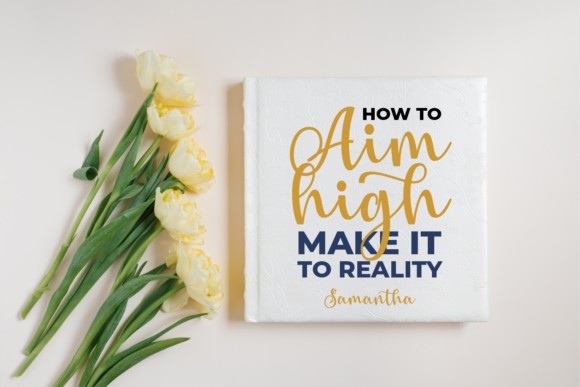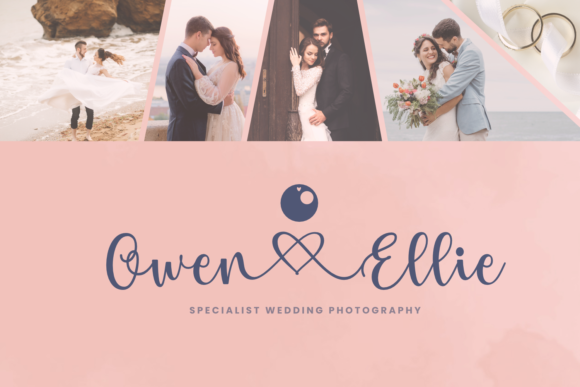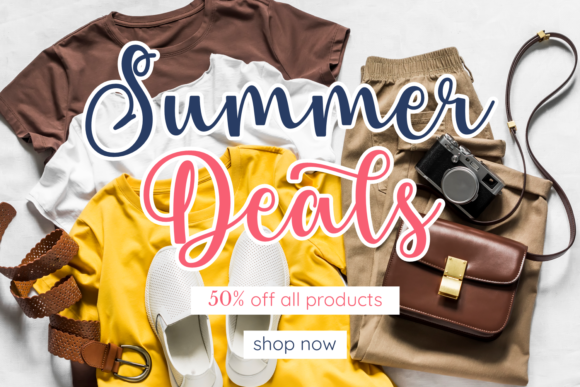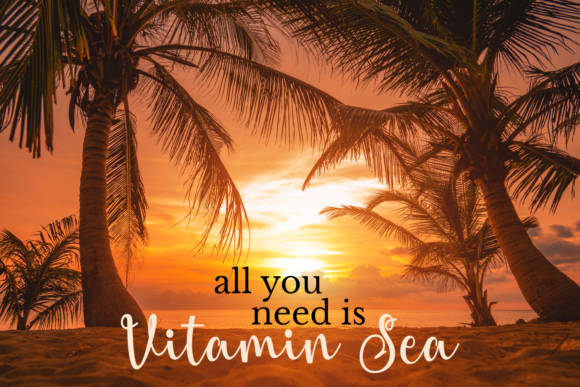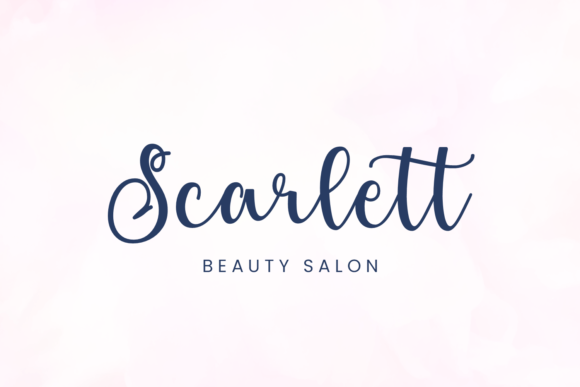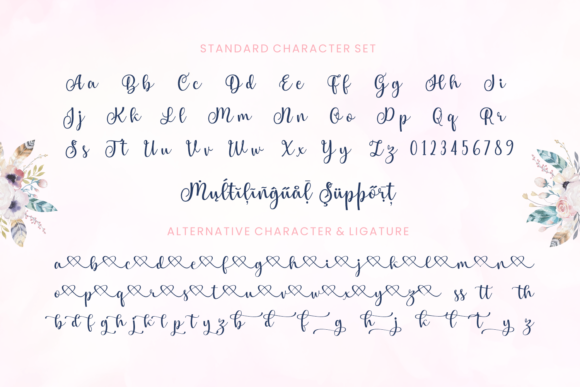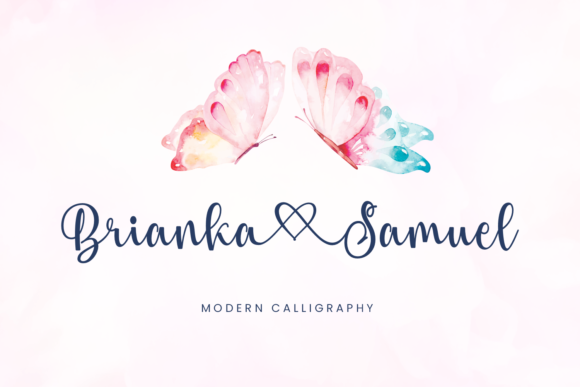
Brianka Samuel Font: Elevate Your Designs with a Touch of Elegance
In the world of typography, fonts play a crucial role in conveying the tone and personality of a design. For those seeking a beautiful, handwritten font that exudes a sense of romance and modernity, look no further than Brianka Samuel. This stunning typeface features cursive characters that are sure to add an authentic touch to various design projects, from wedding invitations to birthday cards and thank you notes.
What Makes Brianka Samuel Font Stand Out?
Brianka Samuel is a versatile handwritten font that boasts a unique blend of elegance and playfulness. Its cursive characters are carefully crafted to create a sense of fluidity and movement, making it perfect for designs that require a personal touch. Whether you’re a designer looking to create stunning visual content or a crafter seeking to add a special touch to your DIY projects, Brianka Samuel is an excellent choice.
Key Features of Brianka Samuel Font
- Beautiful Handwritten Characters: Brianka Samuel features beautiful, cursive characters that are perfect for adding a touch of elegance to your designs.
- Modern Vibe: This font boasts a modern vibe that makes it suitable for a wide range of design projects, from digital content to print materials.
- Versatile: Brianka Samuel is a versatile typeface that can be used for various design projects, including wedding invitations, birthday cards, thank you notes, and more.
- Easy to Read: The font’s clear and legible characters ensure that your message is conveyed effectively, making it perfect for designs that require a personal touch.
Creative Ways to Use Brianka Samuel Font
Brianka Samuel is a versatile font that can be used in various design projects. Here are some creative ways to incorporate this beautiful typeface into your designs:
- Wedding Invitations: Add a romantic touch to your wedding invitations with Brianka Samuel. Its elegant characters are sure to set the tone for a memorable and special day.
- Birthday Cards: Create stunning birthday cards with Brianka Samuel. Its playful and modern vibe makes it perfect for designs that require a personal touch.
- Thank You Notes: Express your gratitude with beautifully designed thank you notes featuring Brianka Samuel.
- Digital Content: Use Brianka Samuel to create stunning digital content, such as social media graphics, blog posts, and more.
To get the most out of Brianka Samuel, here are some tips for designers and crafters:
- Experiment with Colors: Pair Brianka Samuel with a range of colors to create stunning designs that reflect your brand’s personality.
- Mix and Match: Combine Brianka Samuel with other fonts to create unique and visually appealing designs.
- Pay Attention to Spacing: Ensure that your design has sufficient spacing to allow Brianka Samuel’s elegant characters to shine.